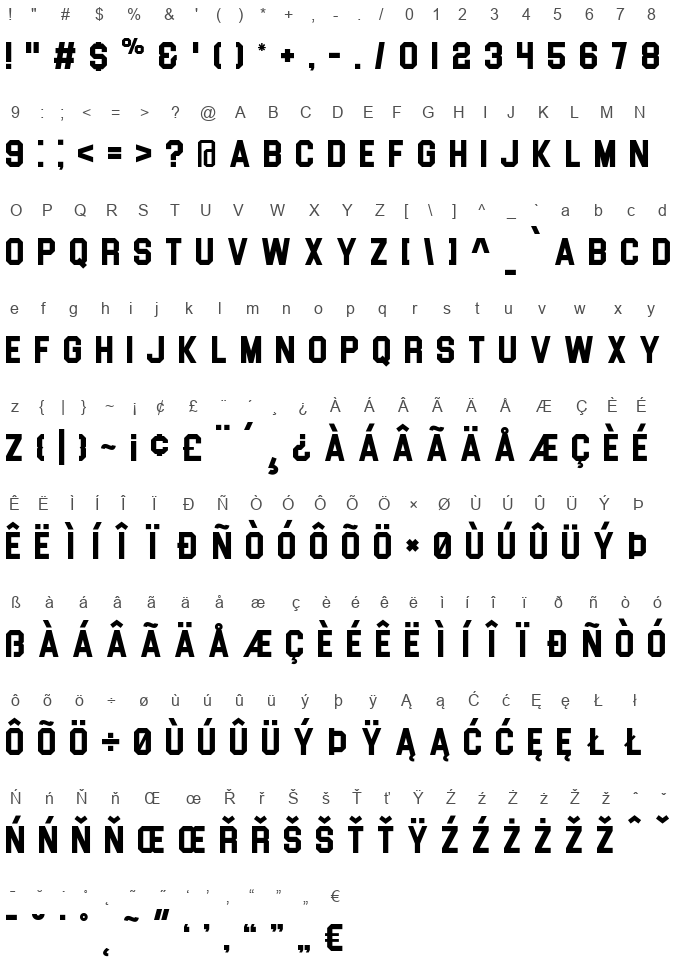
The Blockletter font is a typeface characterized by its heavy, bold, and solid appearance, often reflecting the style of collegiate or sports lettering. Its main characters are typically wide and square in shape, conveying a substantial visual weight. The font is an initial-caps style, meaning the characters are displayed in a uniform uppercase. Furthermore, the promotional image suggests that Blockletter is versatile, including multiple variants such as the normal solid style, an outline style, a tall version, and a 3D outlines version.